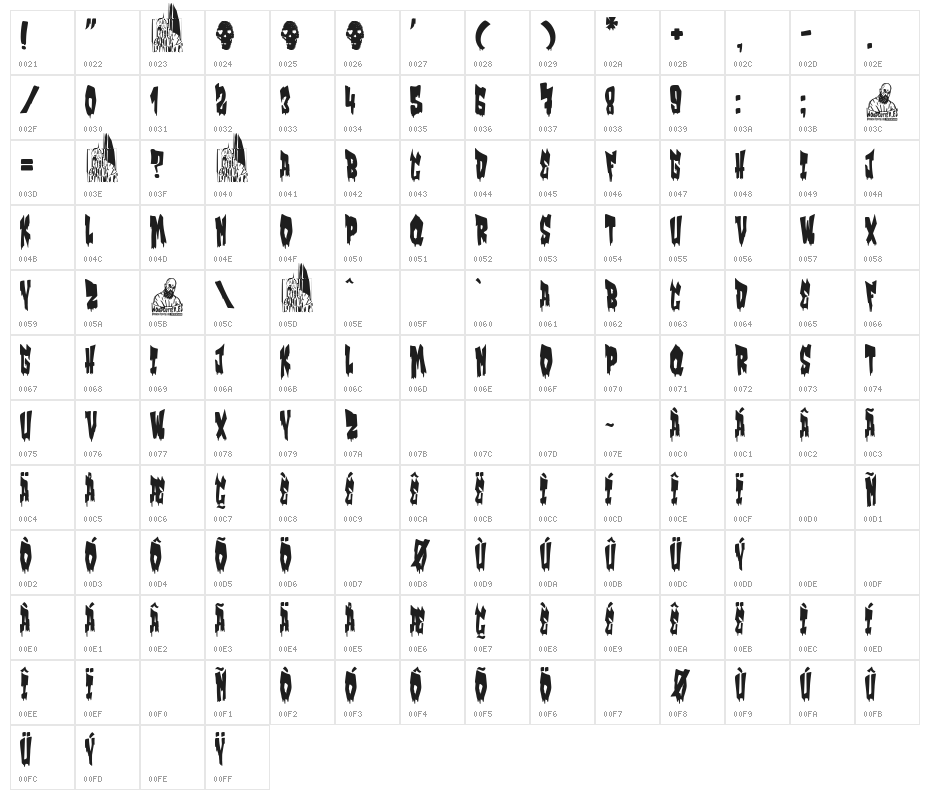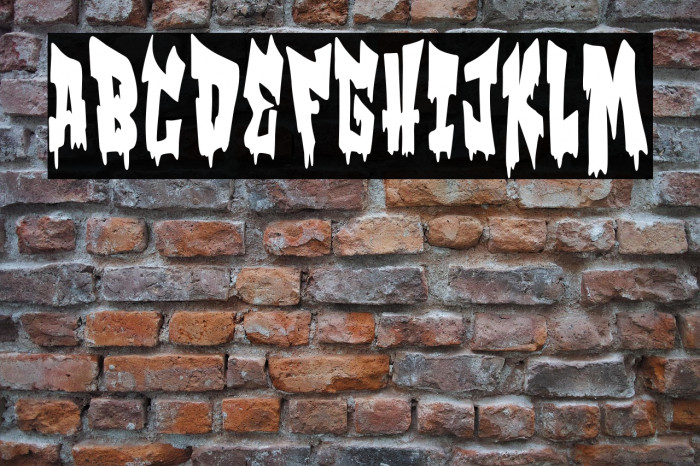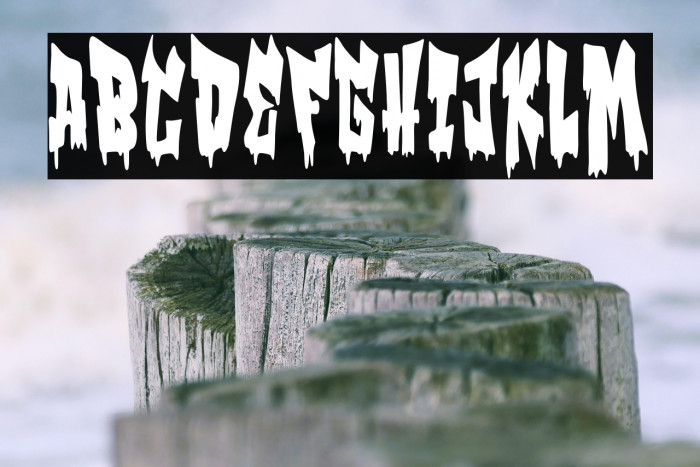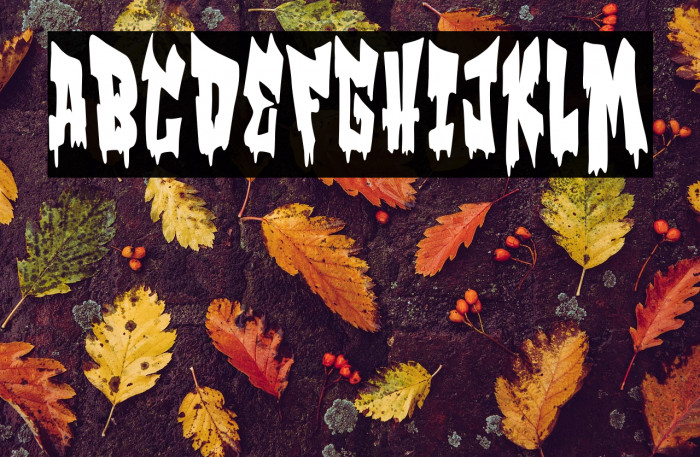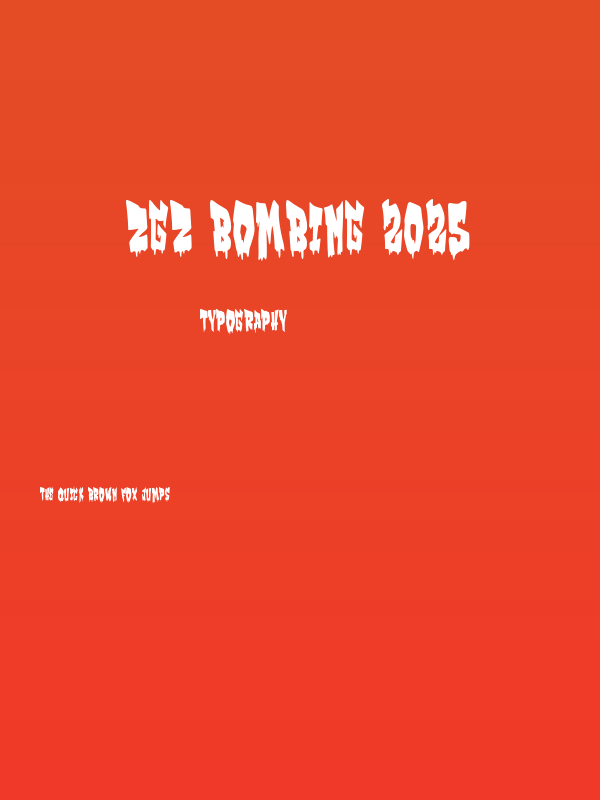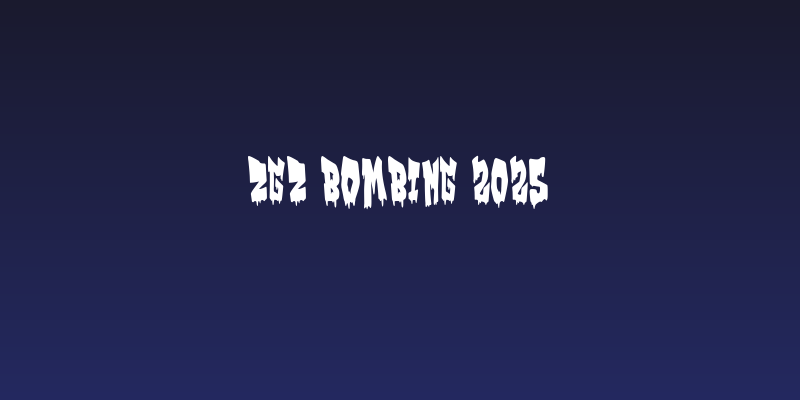
Zgz Bombing 2025 Font
Zgz Bombing 2025 Description
This font features a bold and jagged design, reminiscent of graffiti or urban street art. The characters have a distressed, rough appearance, with irregular edges that give them a dynamic and edgy feel. The uppercase and lowercase letters maintain a consistent style, with exaggerated angles and sharp points. Numbers and special characters follow the same aesthetic, enhancing the overall cohesive look. This font is ideal for projects that require a rebellious or unconventional vibe, making it perfect for posters, album covers, or any creative work that seeks to stand out.
| Overall Style | Urban, Edgy, Rebellious |
| Proposed Projects | Ideal for posters, album covers, street art designs, and edgy branding projects. |